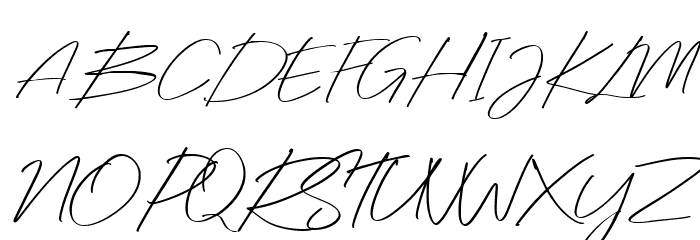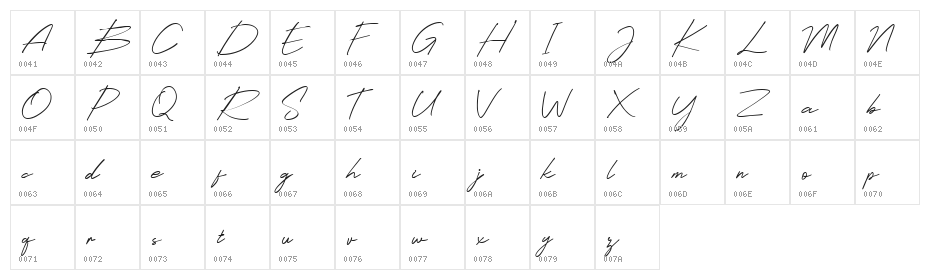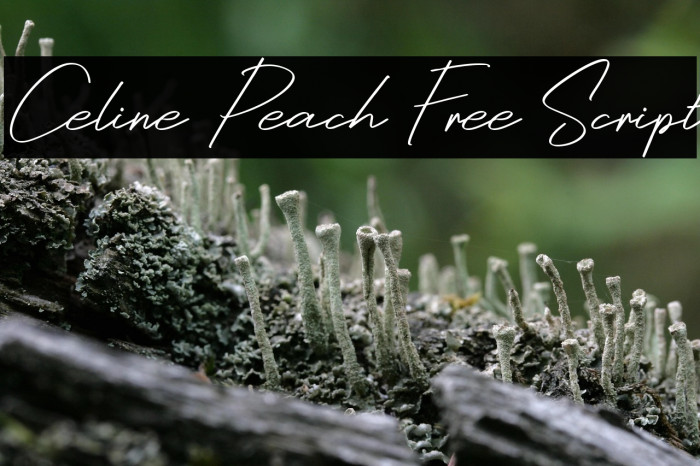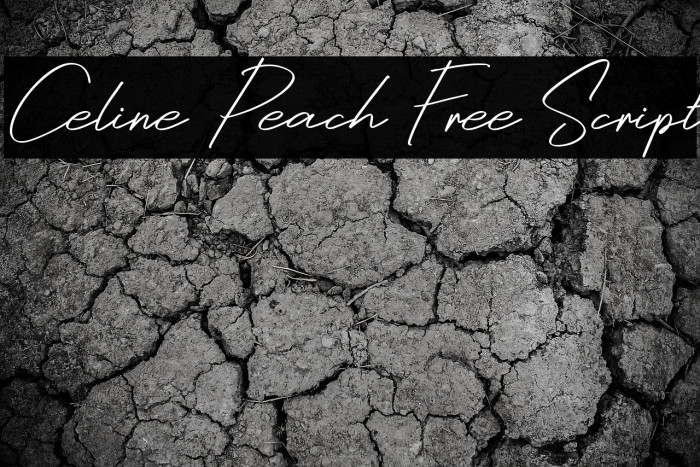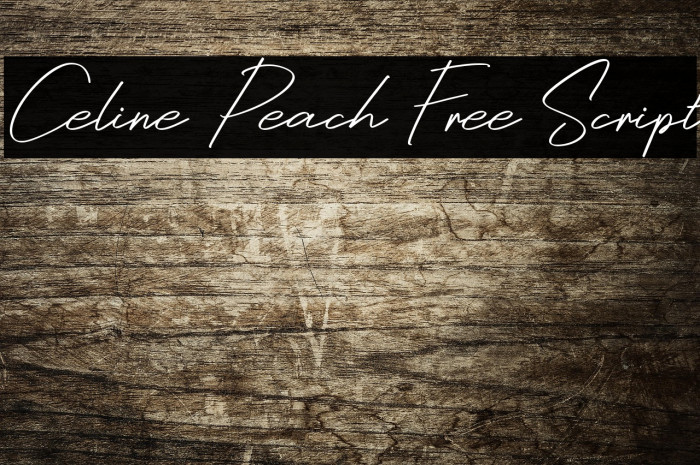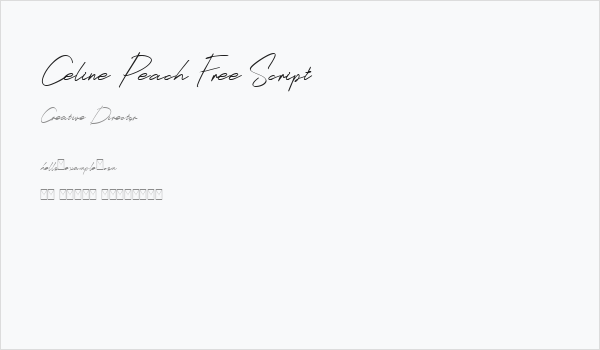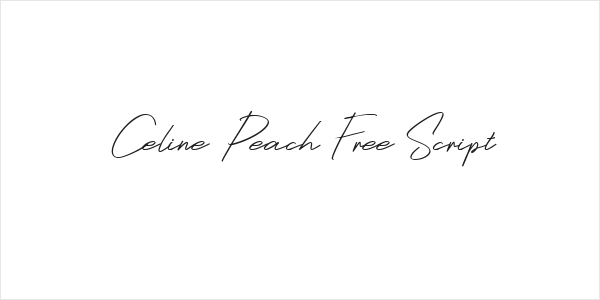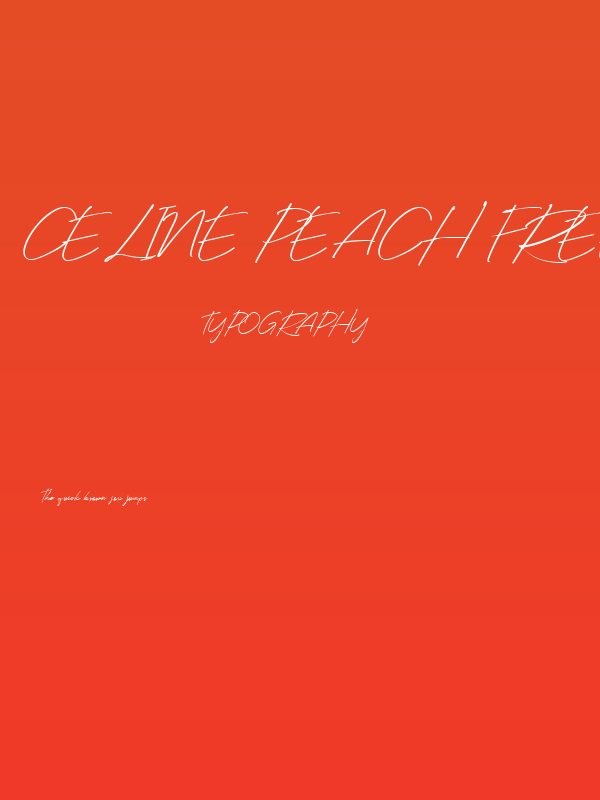
Celine Peach Free Script Font
Celine Peach Free Script Description
This font exudes a delicate and elegant script style, characterized by its flowing, cursive letterforms. The strokes are smooth and continuous, creating a sense of fluidity and grace. The uppercase letters are slightly more angular, adding a touch of sophistication, while the lowercase letters maintain a consistent, rounded appearance. The overall design is airy and light, with a natural handwritten feel that is both modern and timeless. This font is perfect for adding a personal touch to any project, with its unique blend of elegance and readability.
| Use Case | Logos, Invitations, Personal branding |
| Proposed Projects | Ideal for wedding invitations, greeting cards, branding, and social media graphics. |